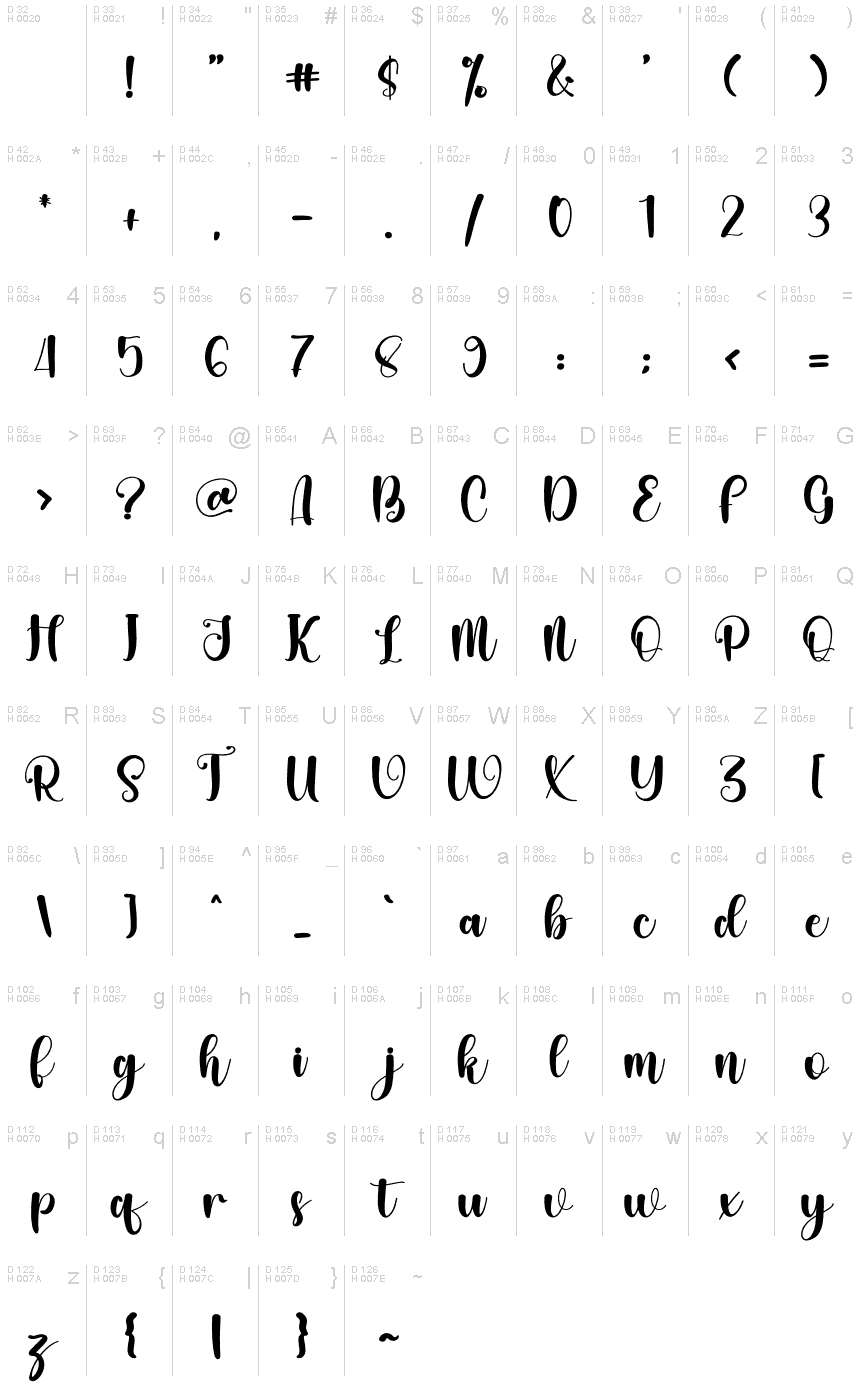
Thanks Giving
Thanks Giving, designed by Inermedia Studio, is a semi-bold calligraphy font that exudes elegance and charm. With its fluid strokes and refined curves, this font captures the essence of traditional calligraphic handwriting while infusing it with a contemporary twist. The balanced weight adds a touch of sophistication, making it perfect for invitations, branding, and editorial designs where a hint of personal touch is desired.
The aesthetic appeal of Thanks Giving lies in its ability to marry the timeless beauty of calligraphy with the practicality of modern type design. This makes it incredibly versatile for various creative projects that require a blend of classic grace and modern flair. Whether you're crafting wedding stationery or conceptualizing boutique packaging, Thanks Giving invites an air of bespoke craftsmanship to your work.
Its suitability stretches across digital and print mediums alike, promising to leave a lasting impression with its artistic style and visual harmony. Embrace the unique character of Thanks Giving to elevate your design narrative with both style and substance.